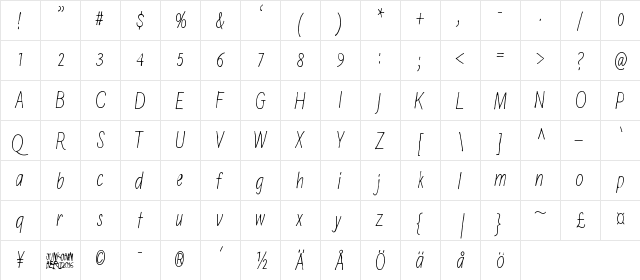
Hidden meanings Italic
Design Context for Hidden meanings Typeface
Hidden meanings is a composed and adaptable typeface that performs quietly and consistently across a wide range of design contexts. The slanted form adds forward momentum and visual energy.
Pro Tip: Use Hidden meanings for emphasis, pull quotes, and subheadings where its slanted energy can add rhythm to the layout.